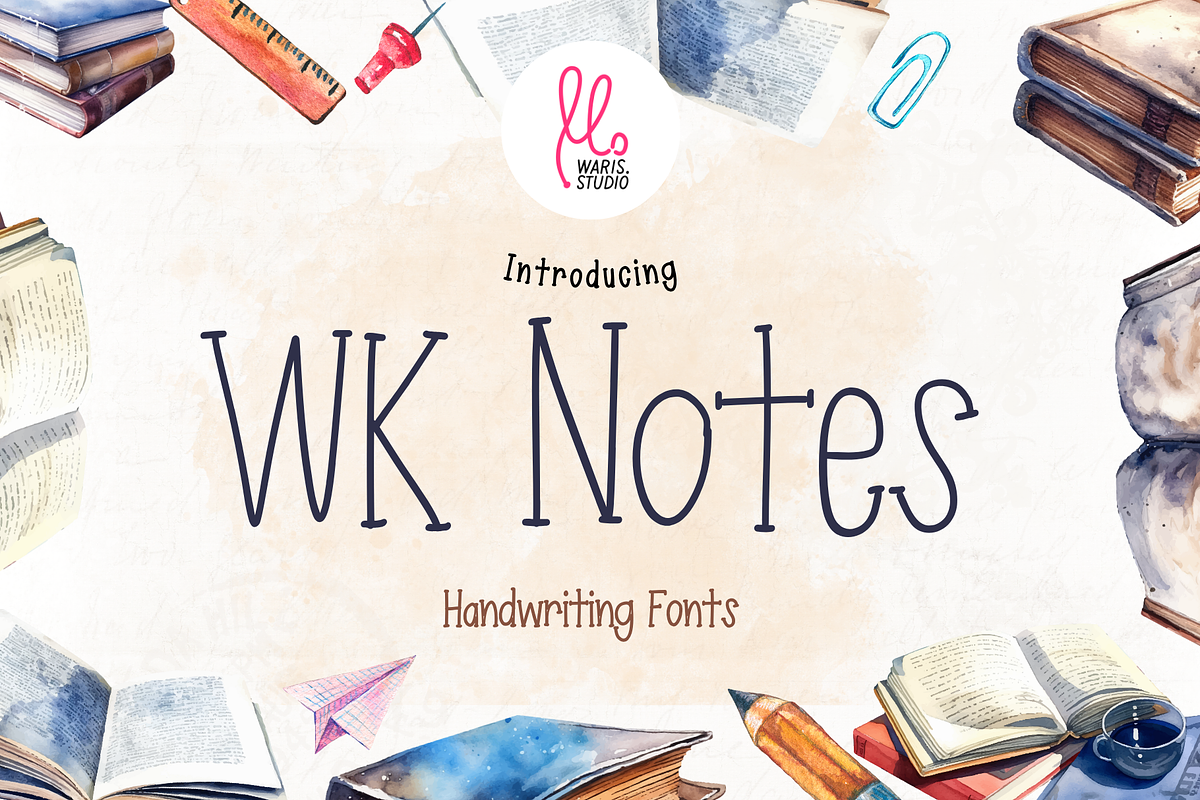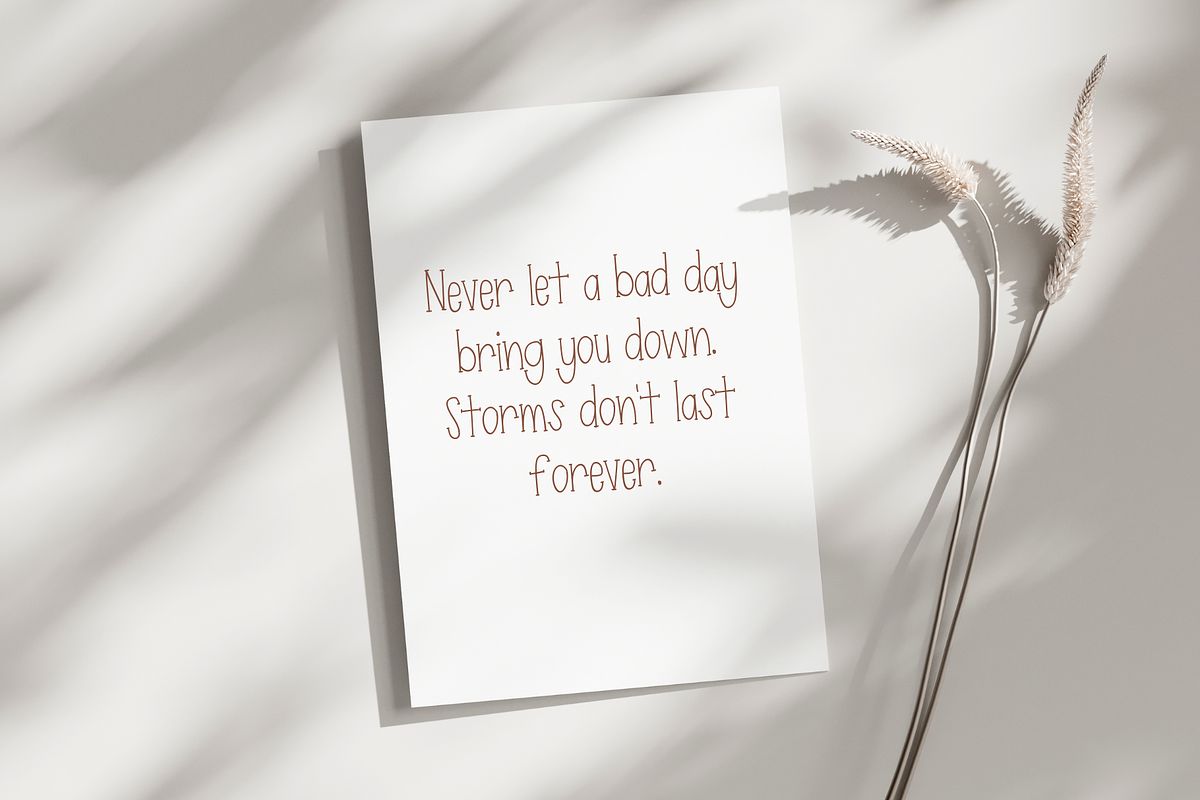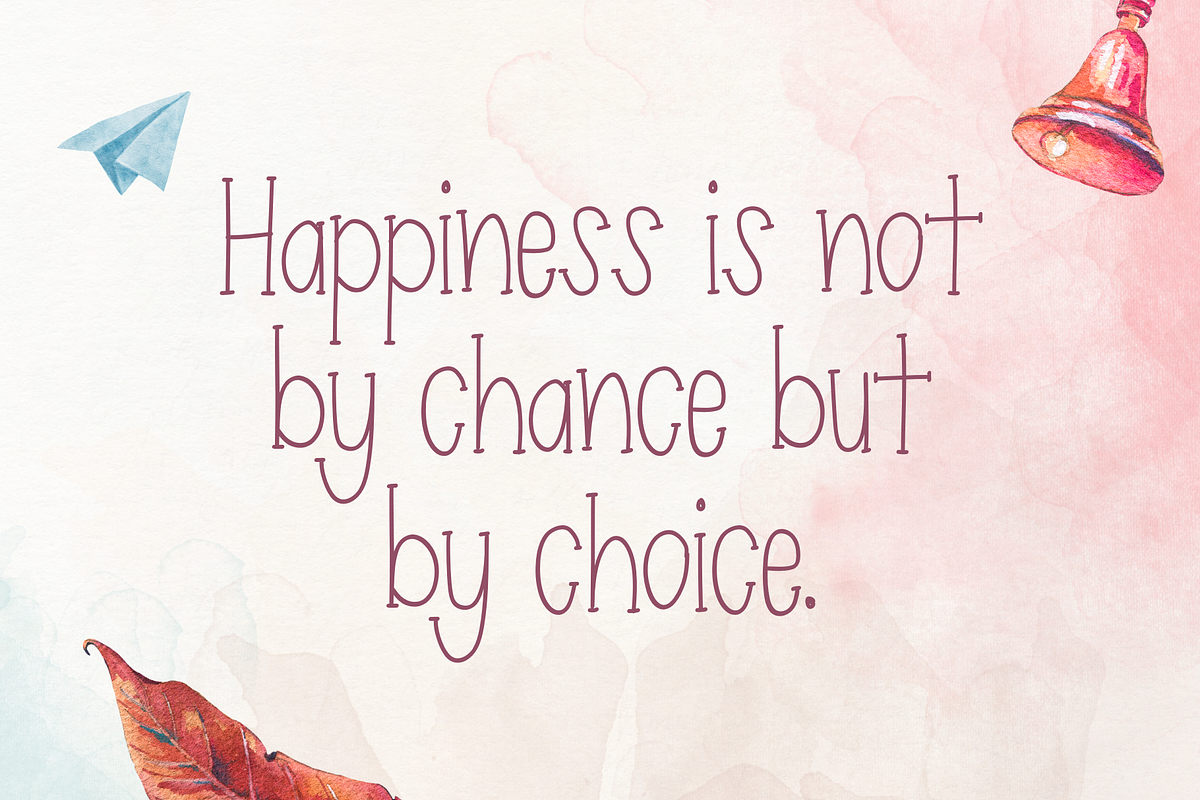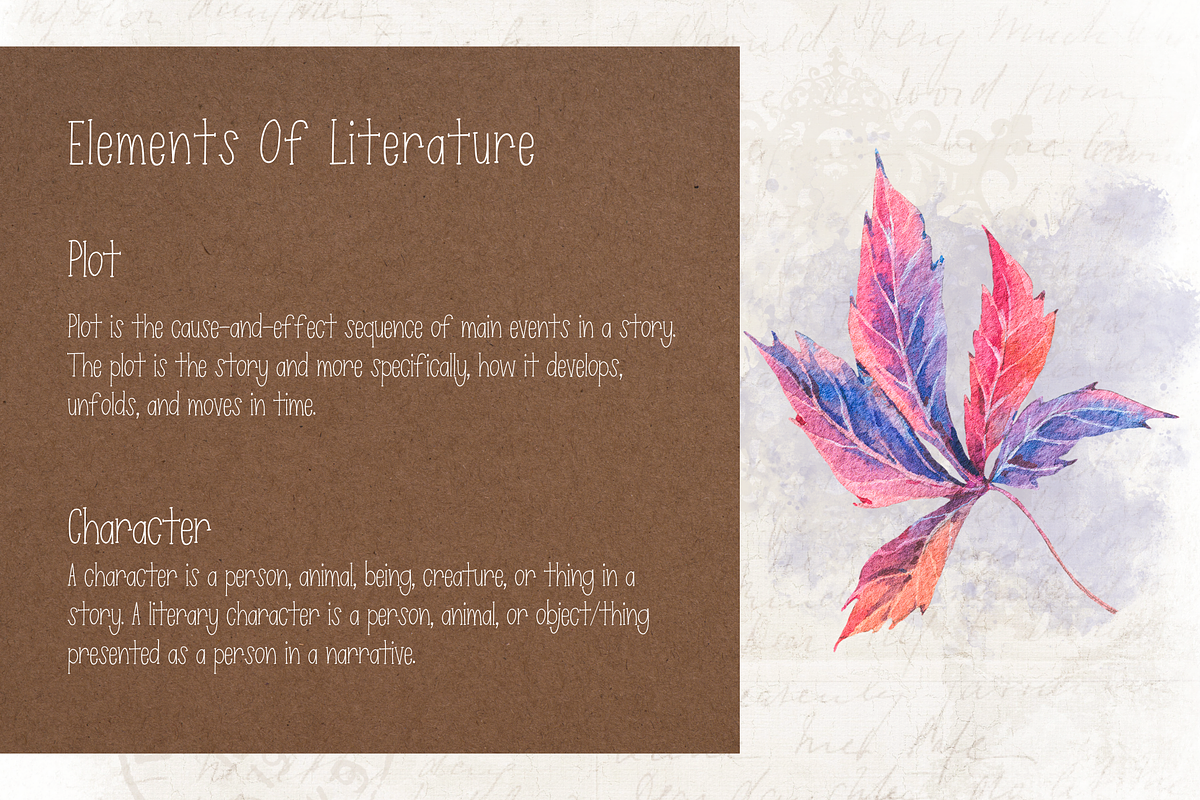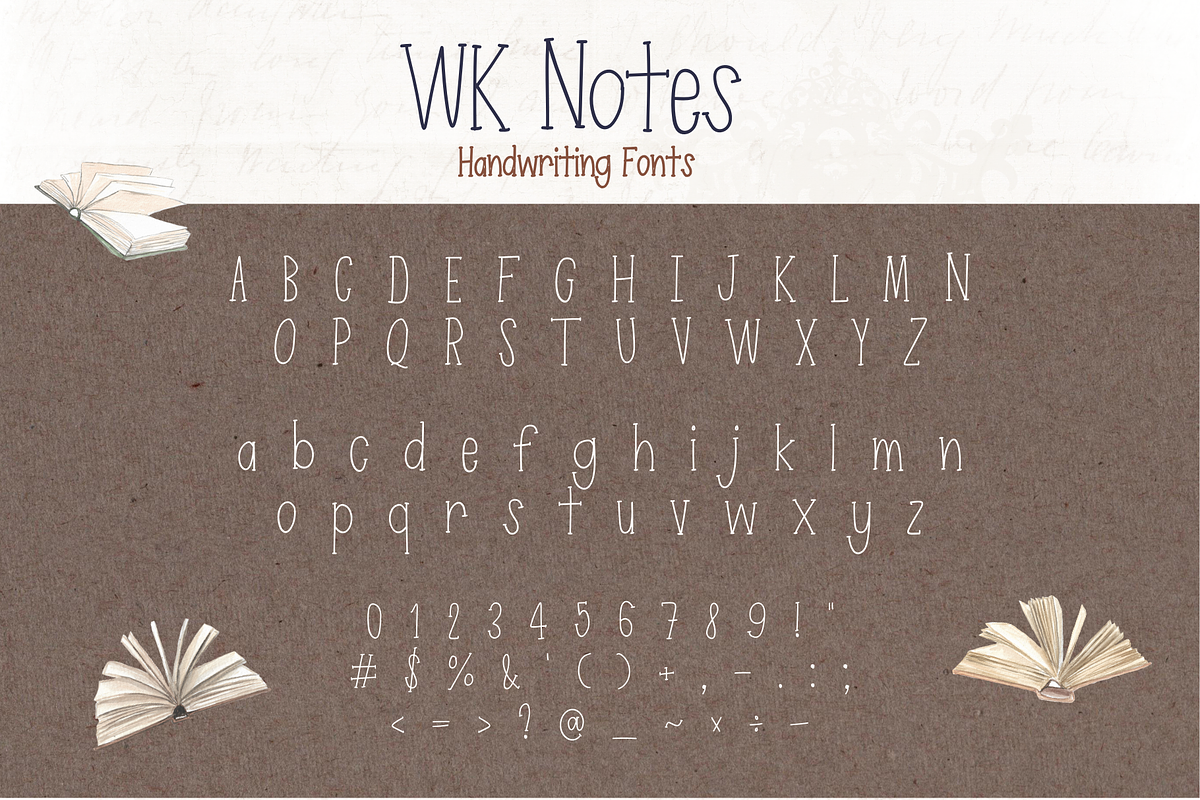
Notes - Your Everyday Handwriting
Introduce a touch of authenticity to your creations with WK Notes, a captivating font that echoes the charm of real notebook doodles. Crafted for injecting a natural and genuine atmosphere into your work, WK Notes flawlessly mirrors the comforting familiarity of daily handwriting. Root your designs in reality with this refreshingly real-life appeasing font, and make your projects radiate an irresistible, humanly warmth.